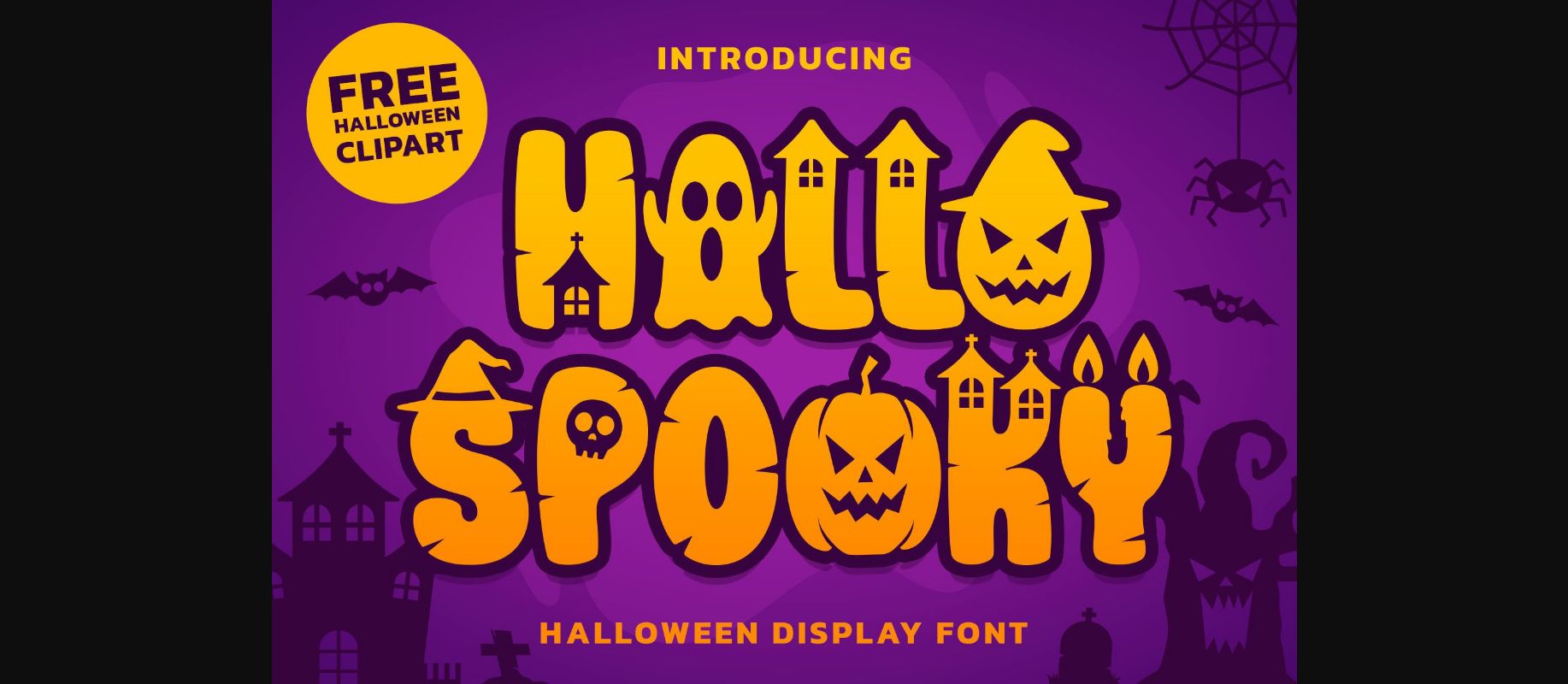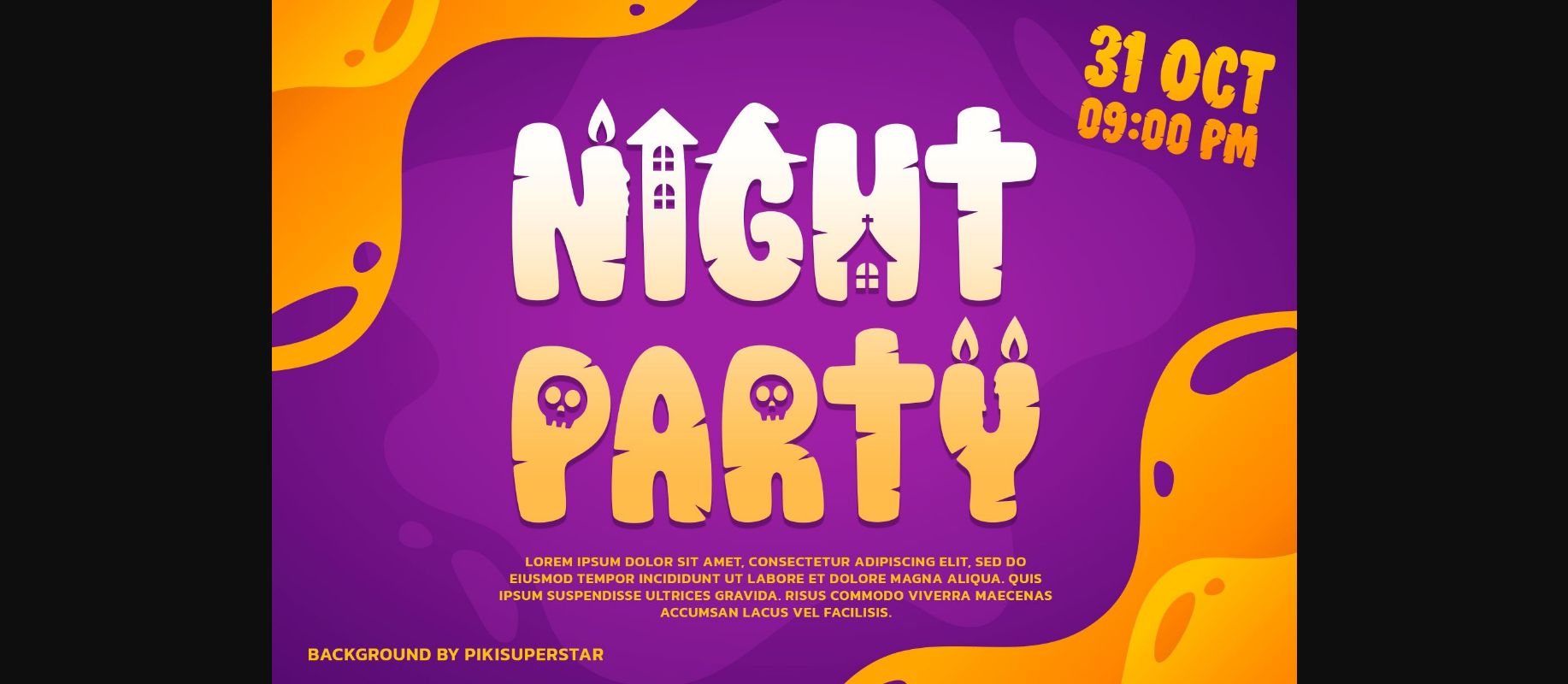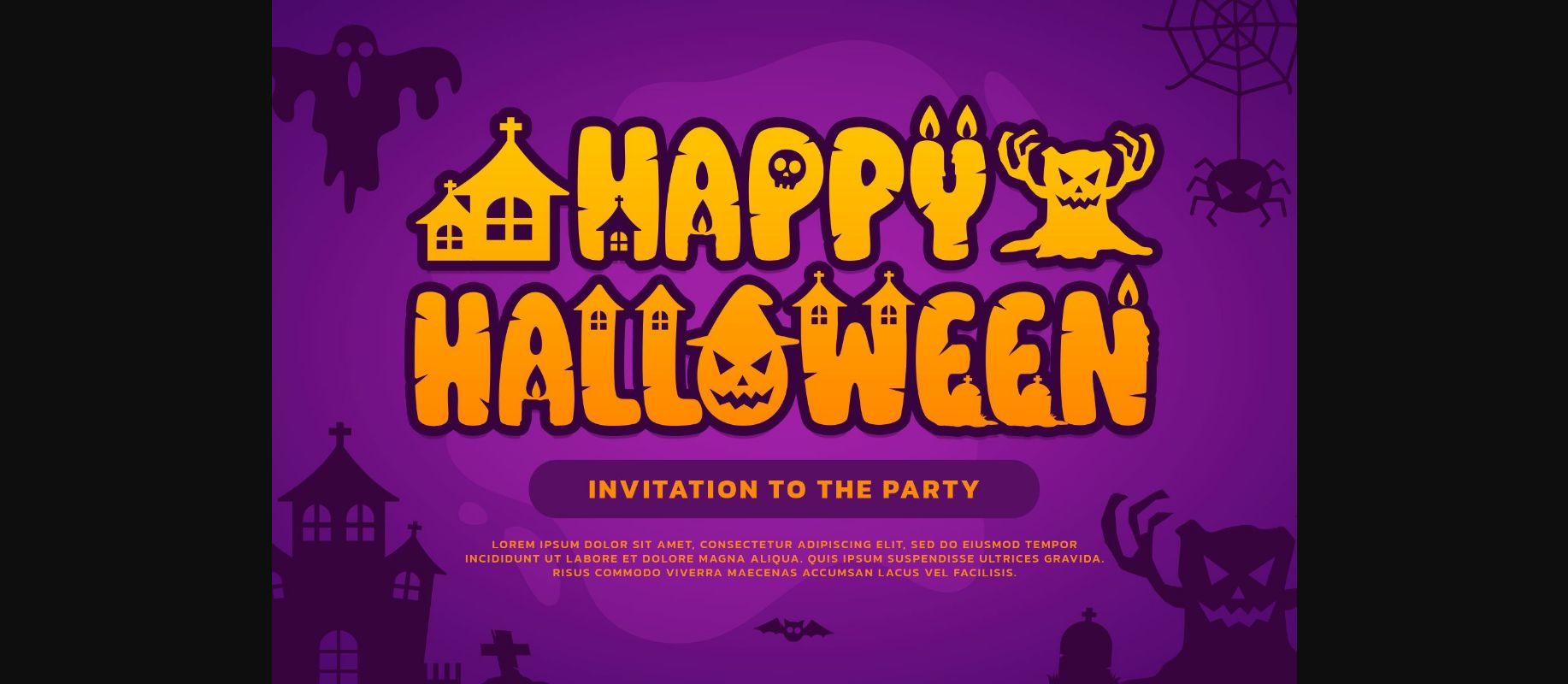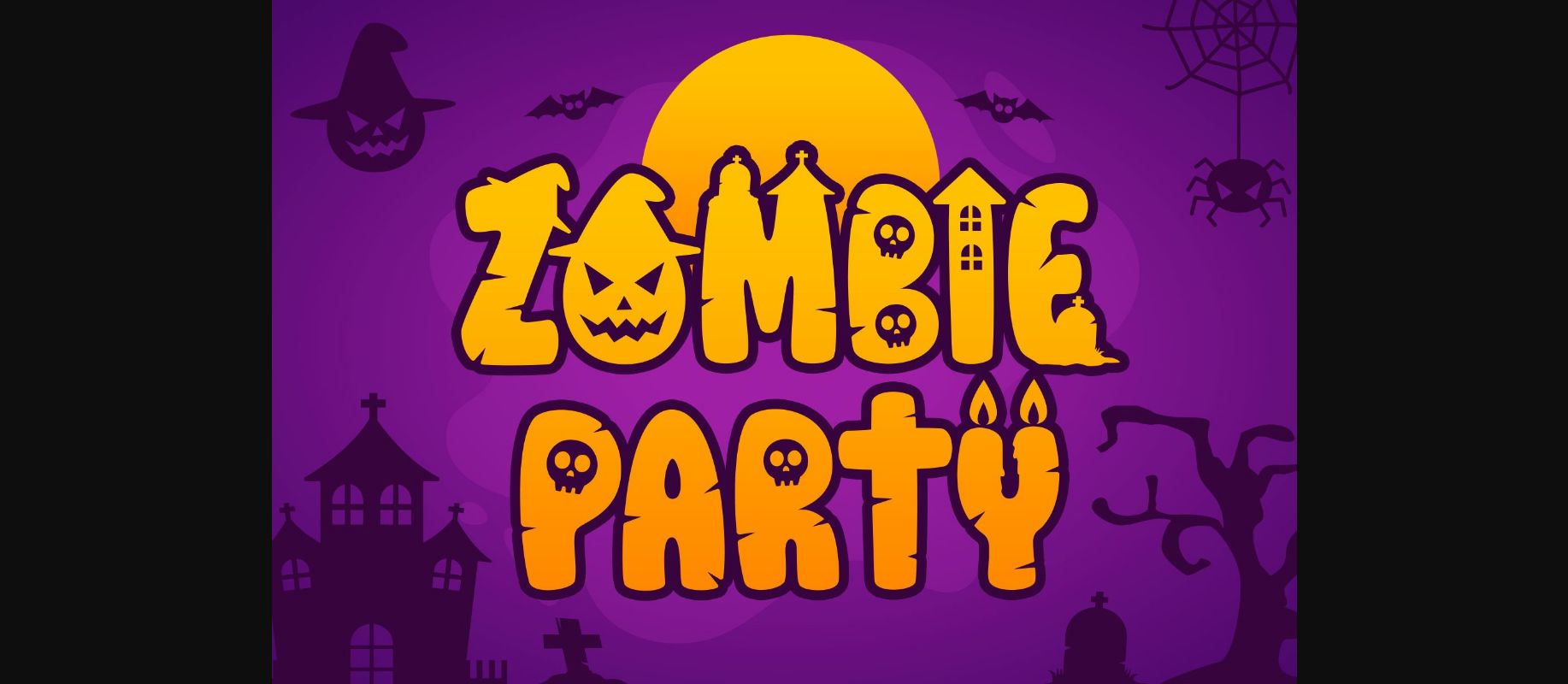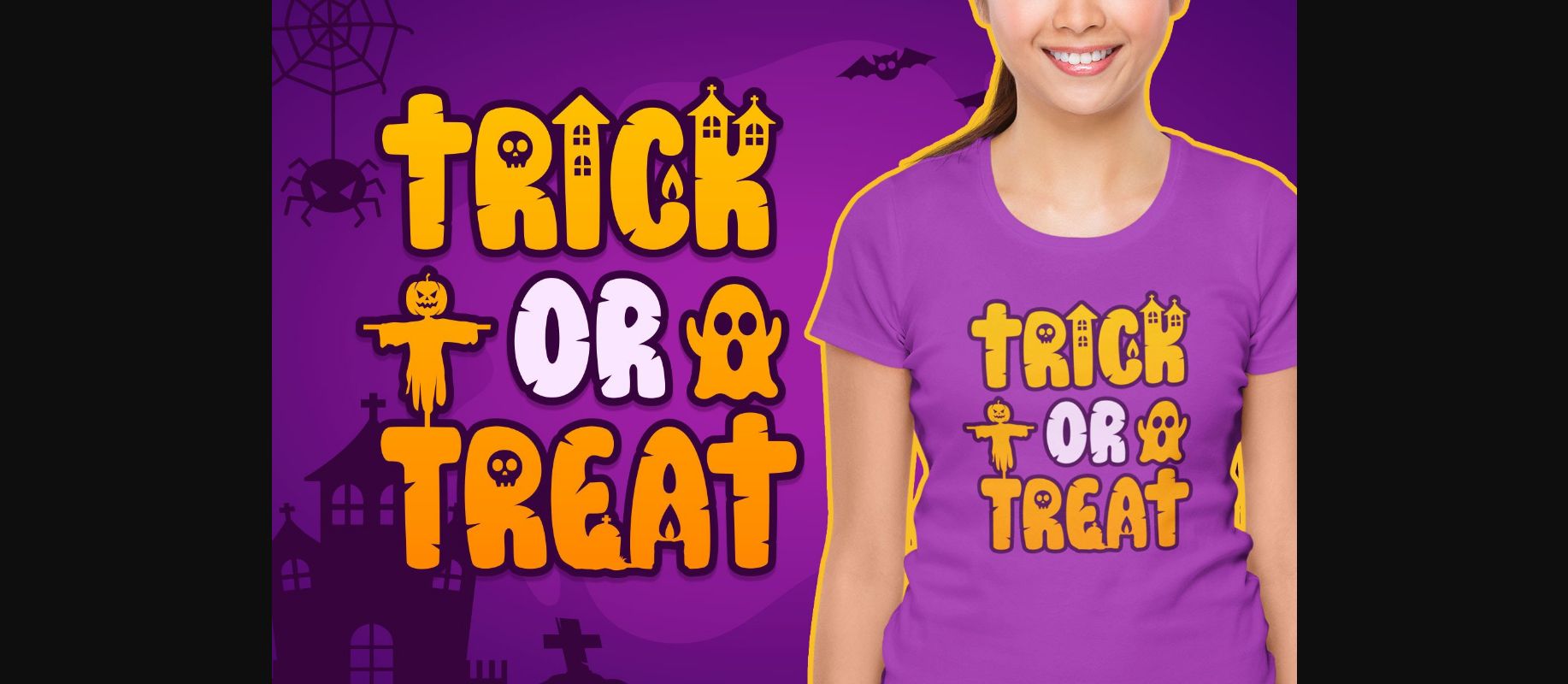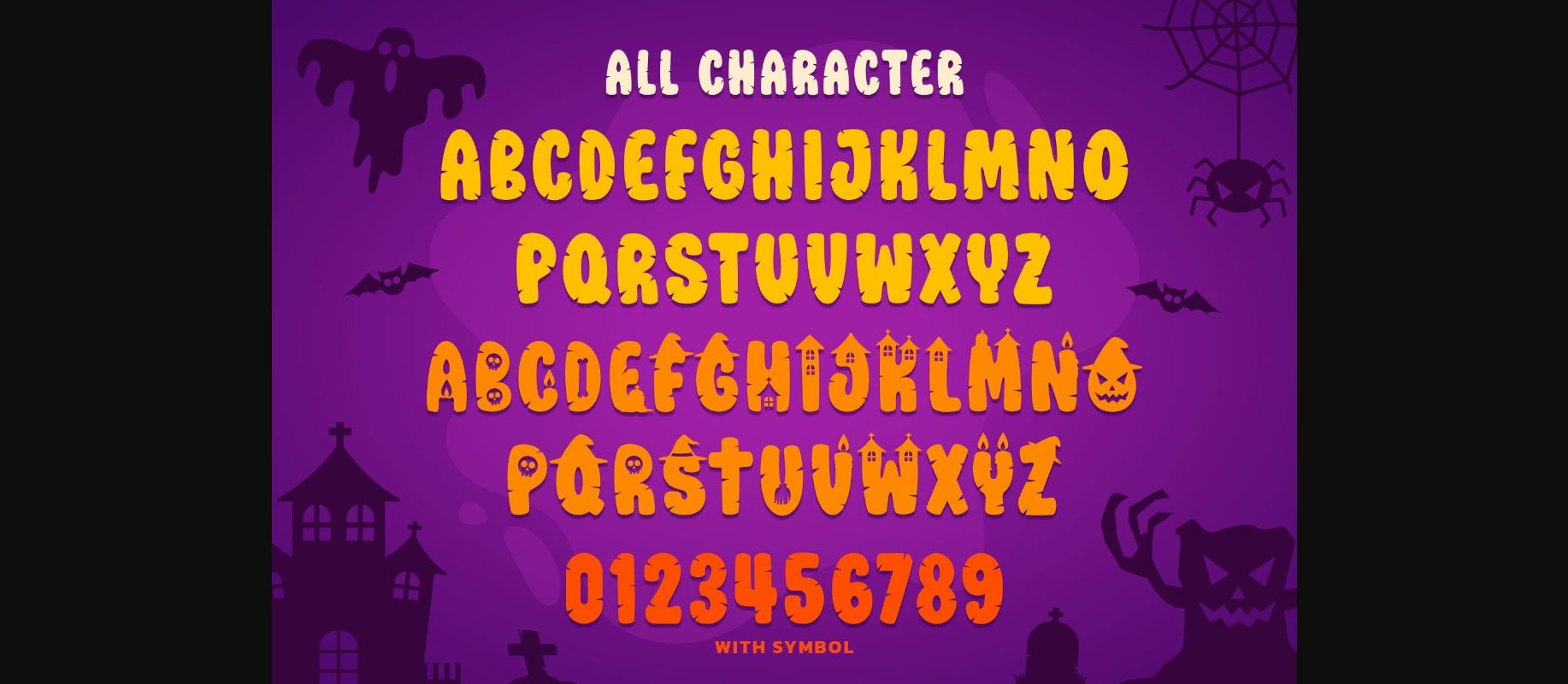
Hallo Spooky Font
About Hallo Spooky Font
Hallo Spooky is a bold Halloween decorative font with cute letters in a Halloween concept. Hallo Spooky is a fresh and unique typeface suitable for Halloween-themed design purposes such as t-shirts, books, posters, and more.